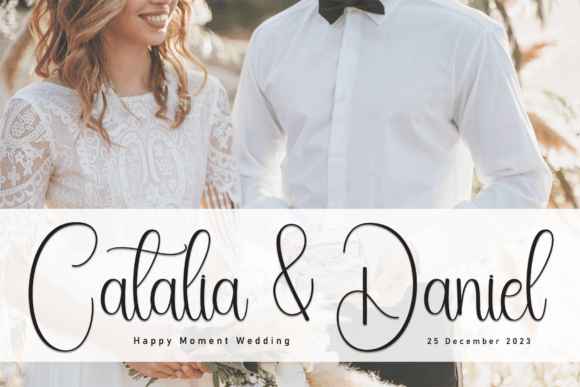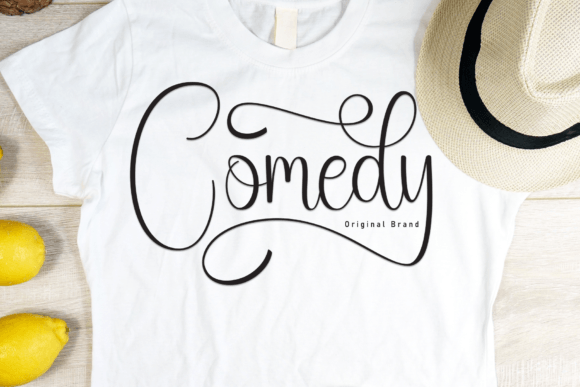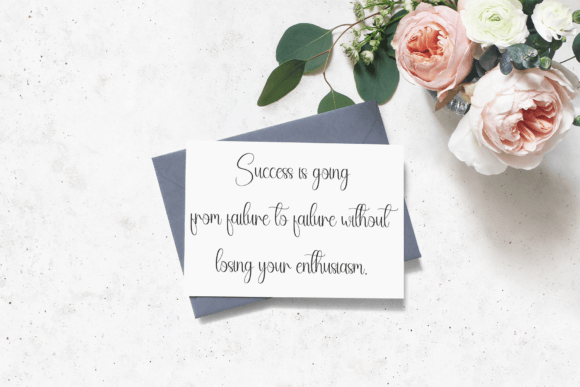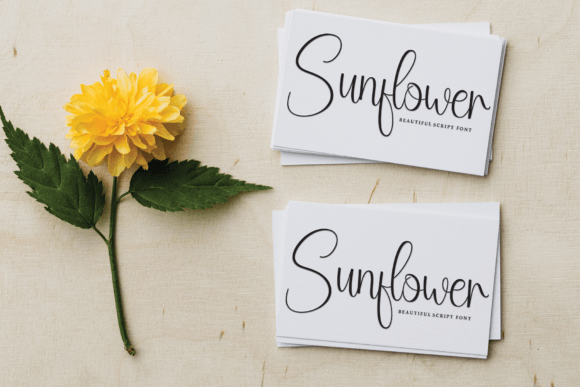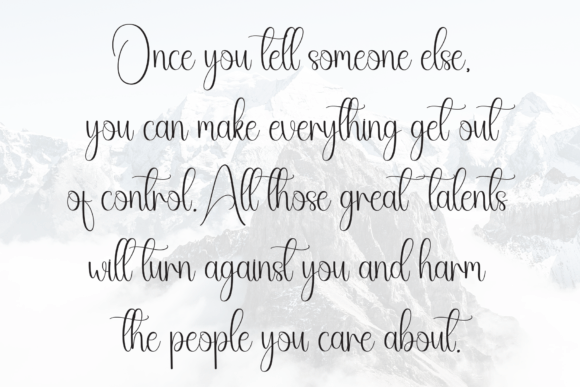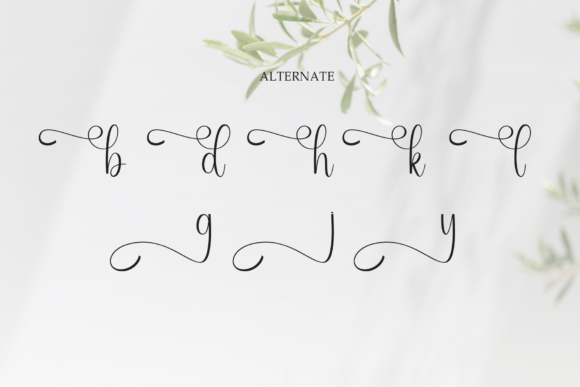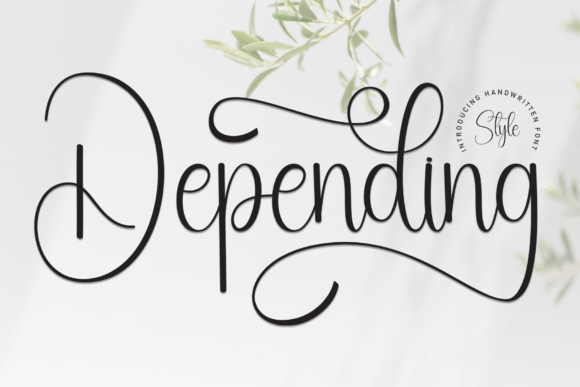
Introducing Depending Font: The Sweet and Friendly Handwritten Display Font
Are you looking for a font that can add a touch of warmth and personality to your designs? Look no further than Depending Font, a sweet and friendly handwritten display font that’s perfect for creating eye-catching wedding invitations, cards, and other designs that require a fun and playful touch.
What is Depending Font?
Depending Font is a beautiful, handmade font that’s designed to bring a sense of joy and whimsy to your designs. With its cute and fun style, this font is ideal for anyone who wants to add a personal touch to their creations. Whether you’re a designer, crafter, or DIY enthusiast, Depending Font is a great choice for projects that require a friendly and approachable feel.
Characteristics of Depending Font
So, what makes Depending Font so special? Here are a few of its key characteristics:
- Handwritten style: Depending Font has a beautiful, handwritten style that’s perfect for creating personal and heartfelt designs.
- Cute and fun: This font is designed to be playful and fun, making it ideal for projects that require a lighthearted touch.
- Display font: Depending Font is a display font, which means it’s perfect for use in headlines, titles, and other prominent design elements.
- Versatile: This font can be used for a wide range of projects, from wedding invitations and cards to posters, flyers, and more.
Uses for Depending Font
So, what can you use Depending Font for? Here are a few ideas to get you started:
- Wedding invitations: Depending Font is perfect for creating beautiful, one-of-a-kind wedding invitations that will set the tone for your special day.
- Cards and stationery: This font is great for creating fun and playful cards, stationery, and other paper crafts.
- Posters and flyers: Depending Font can add a touch of personality to your posters and flyers, making them stand out from the crowd.
- Social media graphics: Use Depending Font to create eye-catching social media graphics that will help you connect with your audience.
Tips for Using Depending Font
Here are a few tips for getting the most out of Depending Font:
- Use it sparingly: Depending Font is a display font, so it’s best to use it sparingly to add emphasis and interest to your designs.
- Pair it with other fonts: Try pairing Depending Font with other fonts to create a unique and visually appealing combination.
- Experiment with colors: Depending Font looks great in a variety of colors, so don’t be afraid to experiment and find the perfect hue for your design.
In conclusion, Depending Font is a sweet and friendly handwritten display font that’s perfect for adding a touch of personality to your designs. With its cute and fun style, this font is ideal for projects that require a playful and approachable feel. Whether you’re a designer, crafter, or DIY enthusiast, Depending Font is a great choice for anyone who wants to create eye-catching and memorable designs.